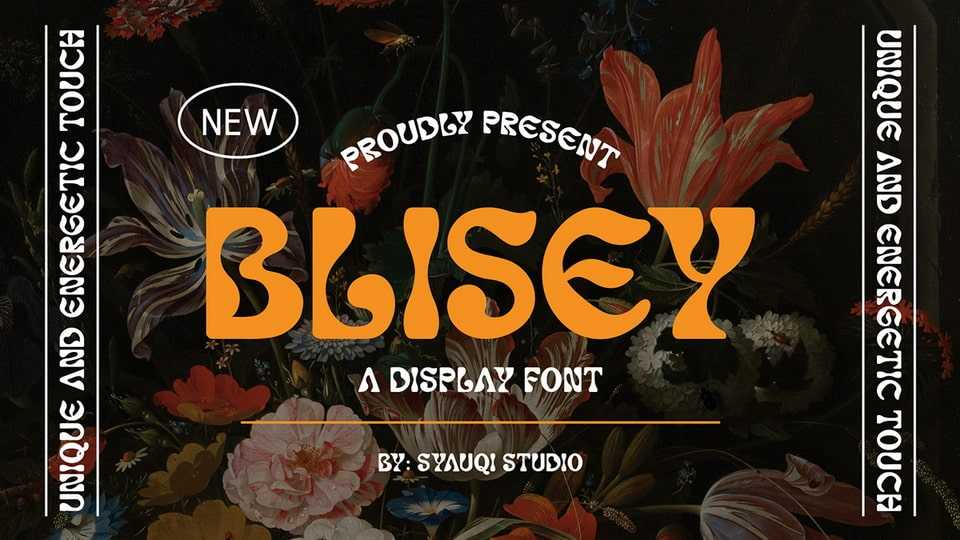
Download Blisey font, a bold and vibrant display typeface designed to capture the essence of psychedelic art and retro aesthetics with its unique curves and dynamic letterforms.
Designer: Syauqi Studio